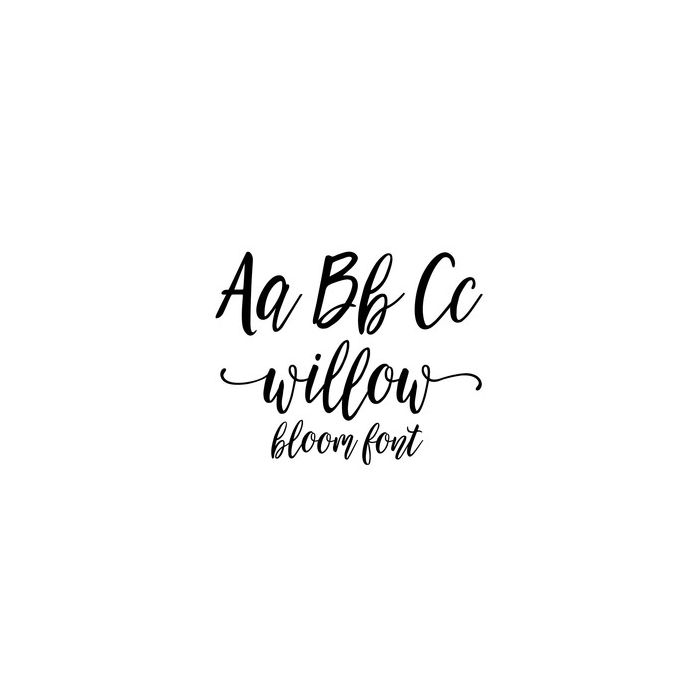
Willow Bloom is a beautiful, modern calligraphy font with a dancing baseline that includes beginning and end swashes. This font contains a total of 324 characters including international characters.